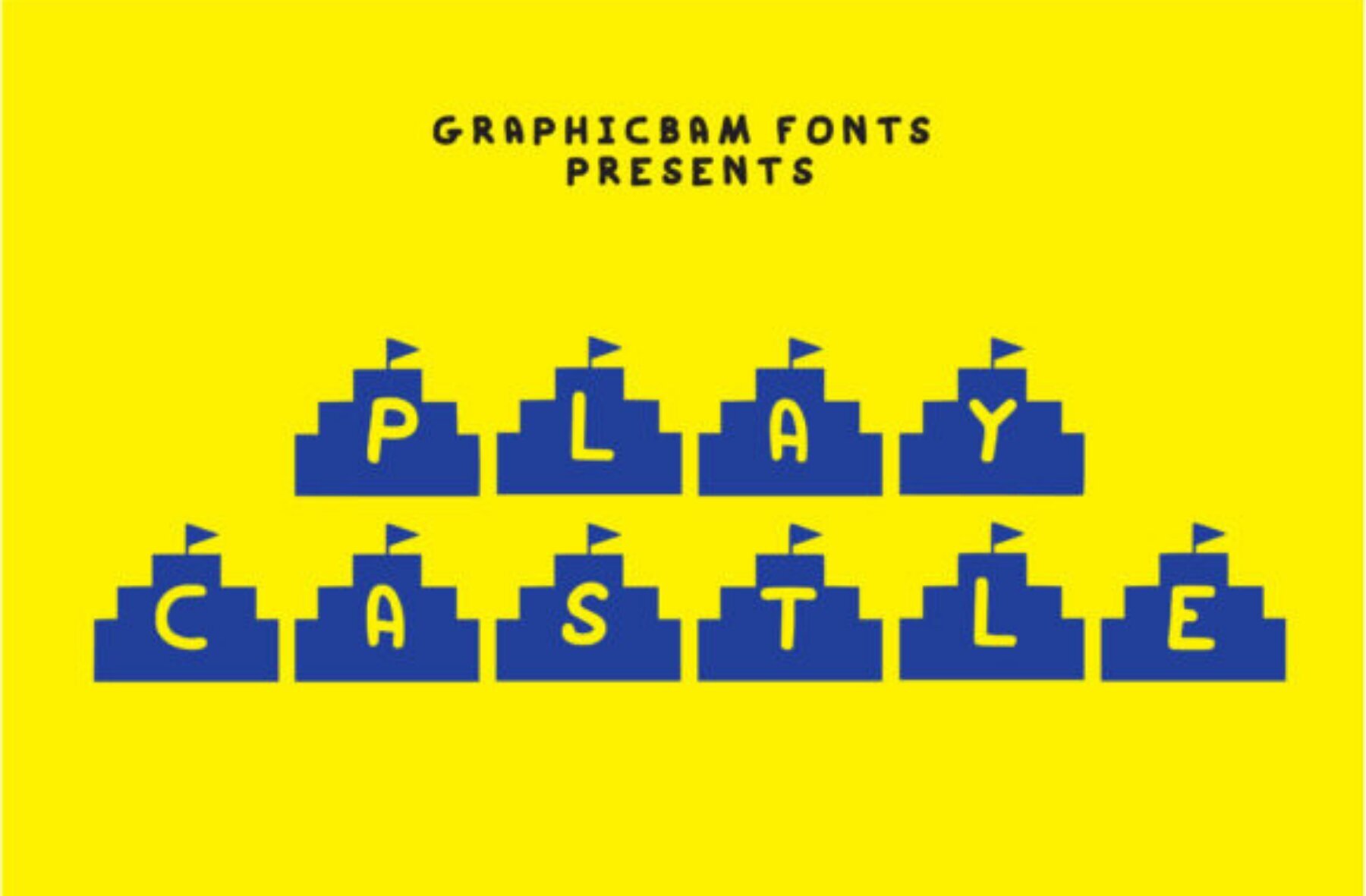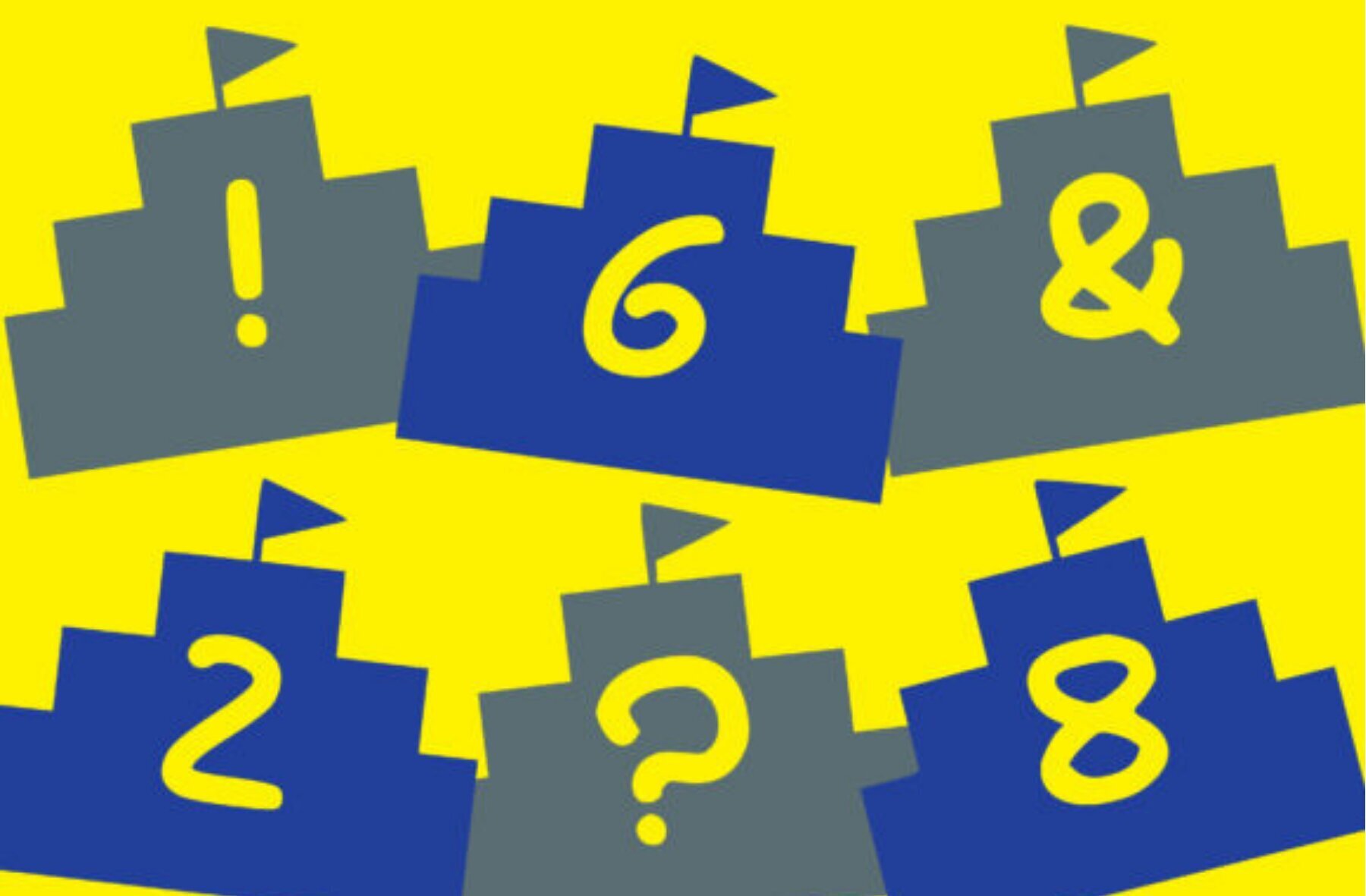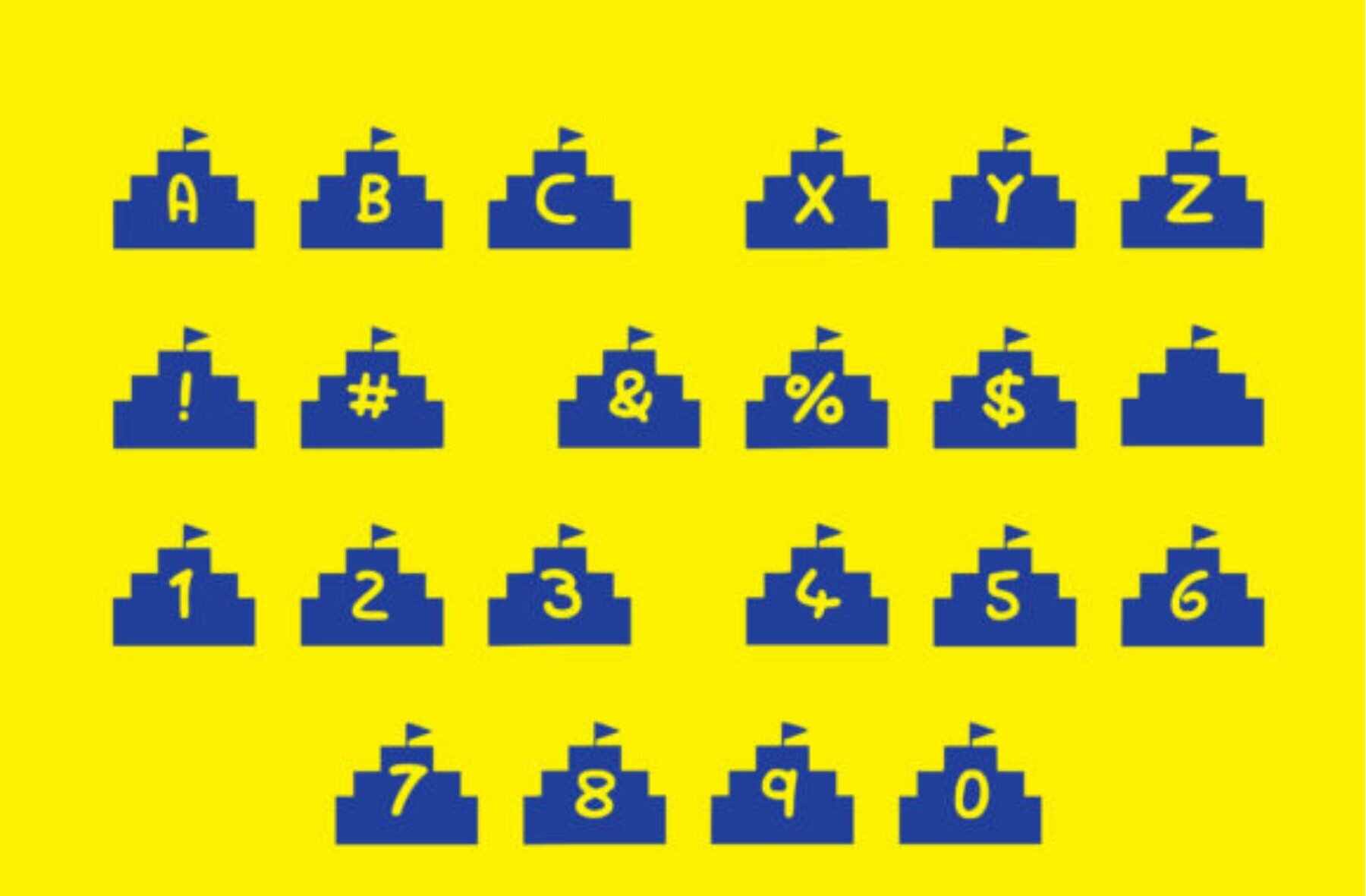
Play Castle Font
Play Castle Regular
Play Castle is an intriguing decorative font that adds a touch of whimsy to your design projects. Each character is adorned with a castle, infusing a sense of fantasy and wonder into your work. This font is designed to capture attention and spark the imagination. Enhance your font library with Play Castle, and let your creativity soar. This charming typeface is perfect for those who love to bring stories to life in their designs.Play Castle: A Majestic Decorative Font